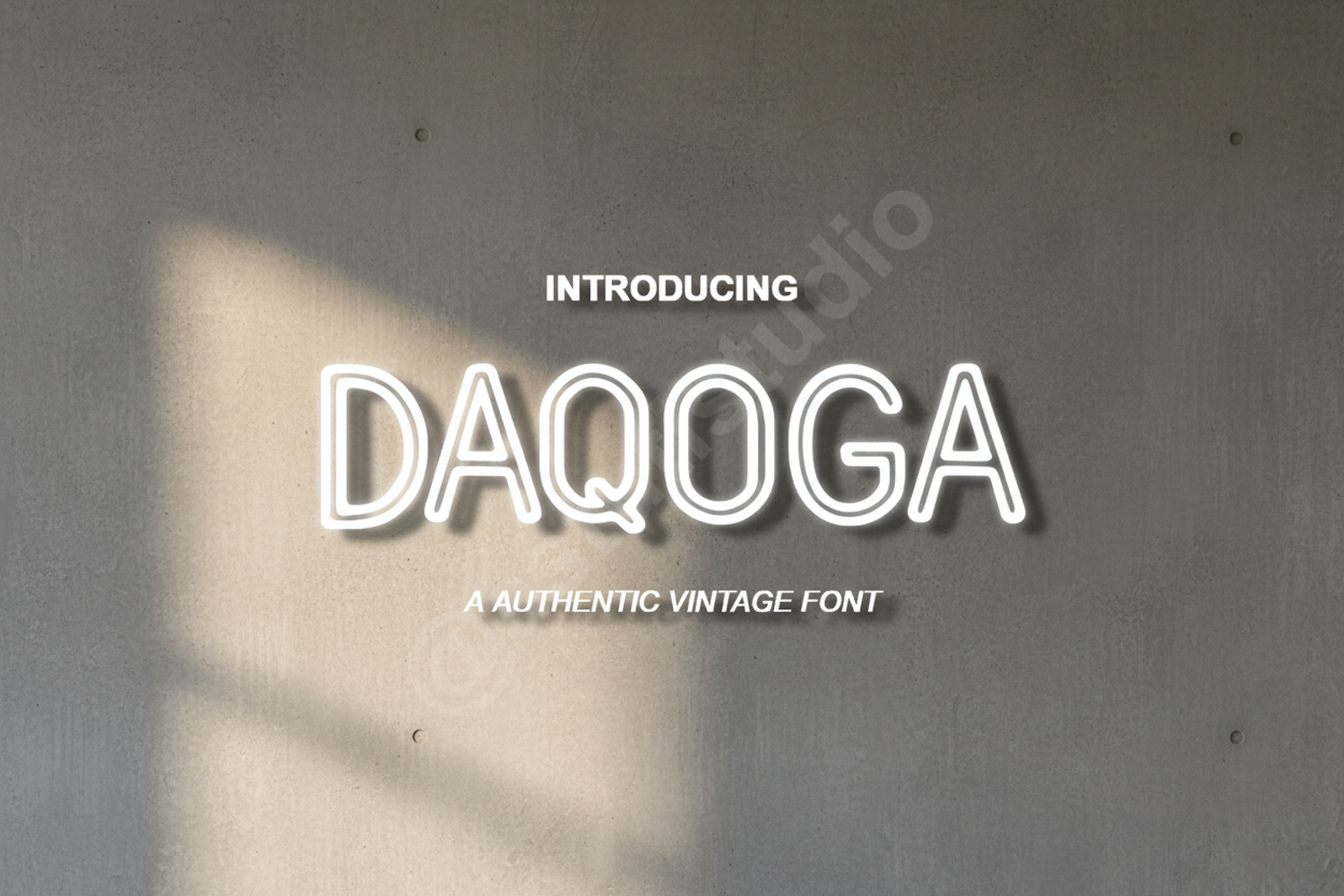
Daqoga - Modern Geometric Sans Serif
Daqoga
Daqoga is a premium sans serif typeface meticulously crafted to bring a sense of modern sophistication to your creative projects. With its clean lines and geometric precision, this font offers a perfect balance between professional authority and contemporary style. Whether you are working on a high-end corporate identity or a minimalist lifestyle brand, Daqoga provides the versatility and clarity needed to make a lasting impression.
- Branding and Identity: Create memorable logos and cohesive brand guidelines.
- Editorial Design: Perfect for magazine layouts, book covers, and crisp headlines.
- Digital Marketing: Enhance website headers, UI/UX elements, and social media graphics.
- Corporate Communications: Ideal for professional presentations, whitepapers, and annual reports.
- Product Packaging: Add a touch of luxury and modernism to your physical goods.